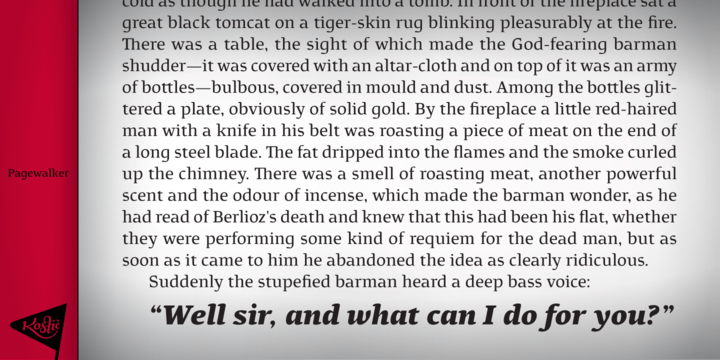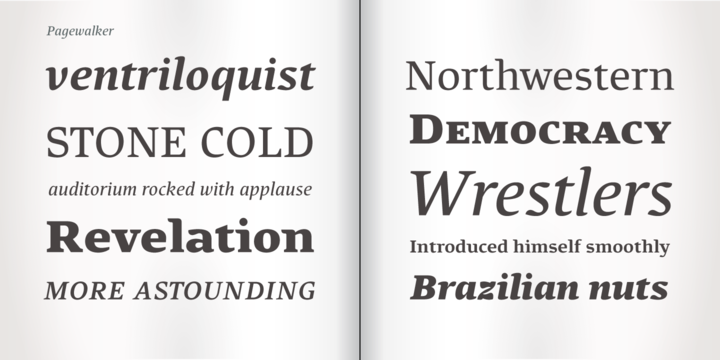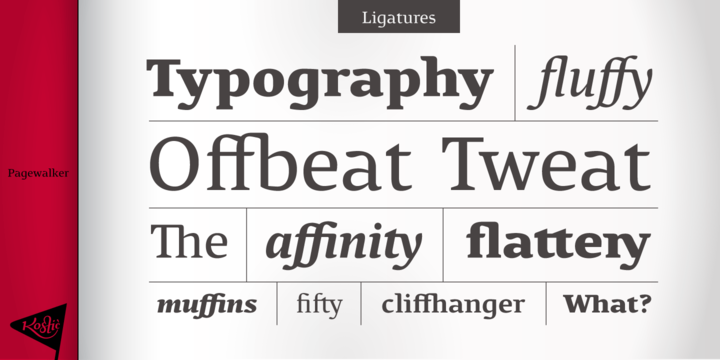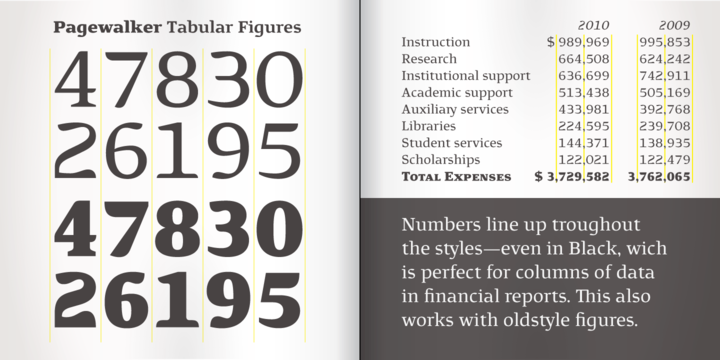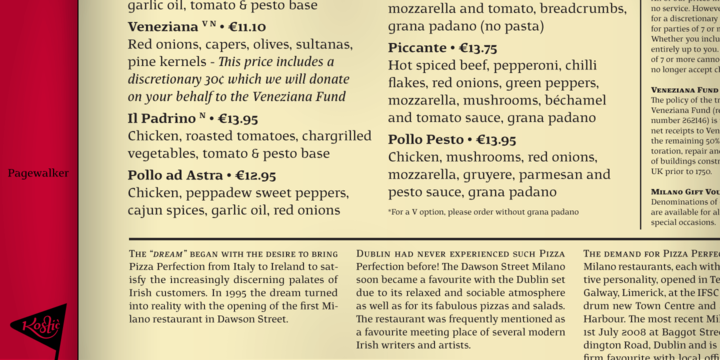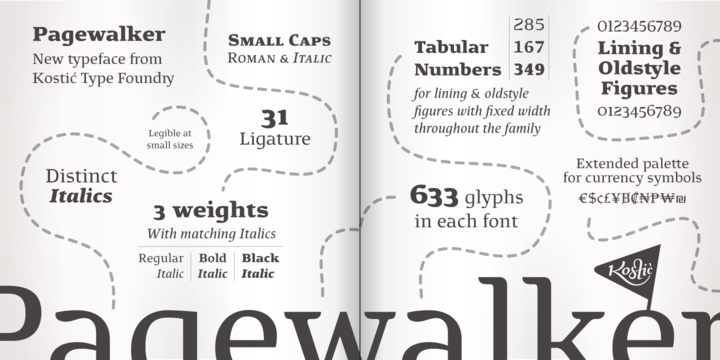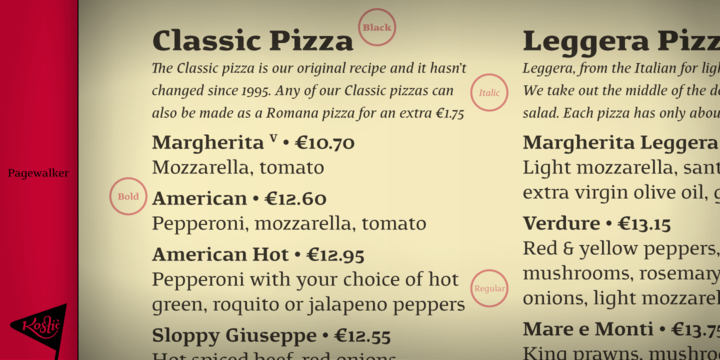
Pagewalker Font Family
The name of the font is chosen to suggest its main purpose—setting multiple pages of text. All the features in this family were made with that in mind—legibility, distinct italics, small caps and various OpenType features, all make this font a useful tool for typographers.
On the other hand, for packaging, posters, logotypes, etc. setting heavier weights in large size brings out its display qualities. Pagewalker is very legible and appears to be larger than other text typefaces. That is because the lower-case characters are made large compared to the capital letters. This means it can be used for setting text in, e.g. 9 pt size—while appearing to be 10 pt, but occupying less space.
• Designers: Nikola Kostić